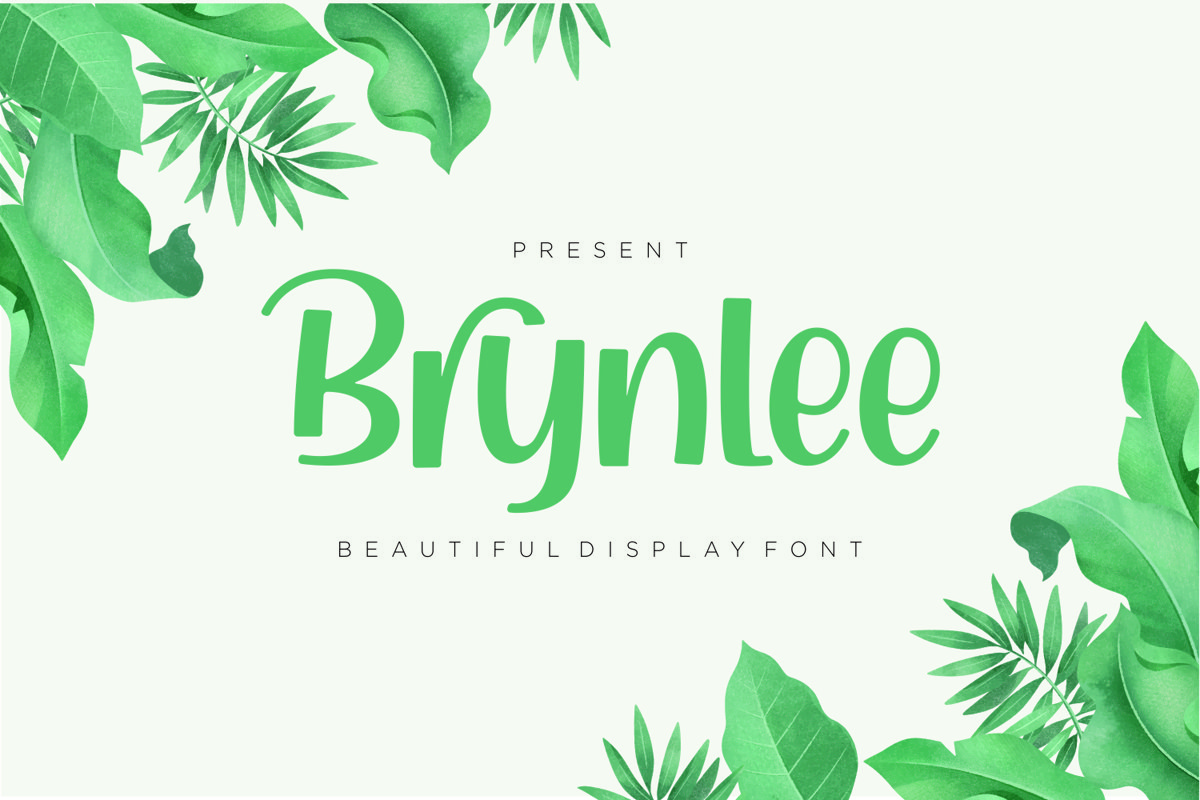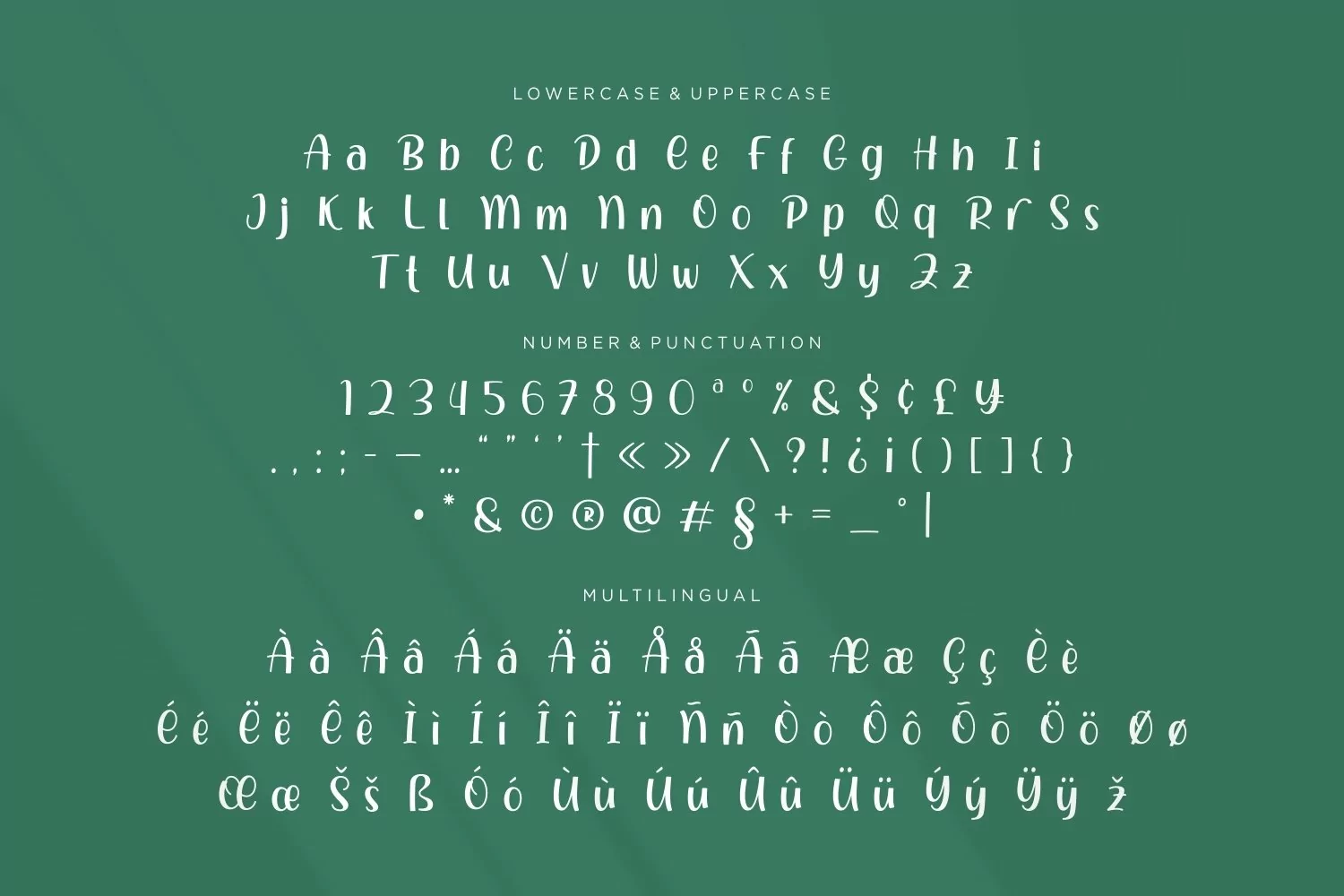
Brynlee is a stylish san serif font come with elegant themes. It matches applies in some designs such as the logotype, brand, packaging, quotes, poster, shirt, book, wedding invitation and more custom design. The features uppercase, lowercase, numeral, punctuation & symbol, multilingual support, PUA encoded (fully accessible without additional design software).